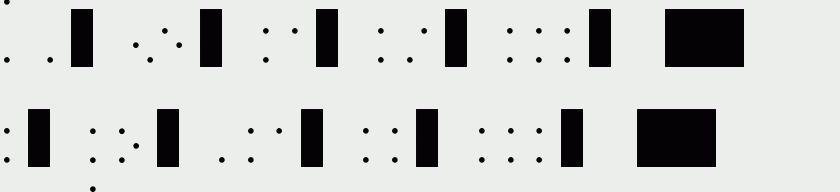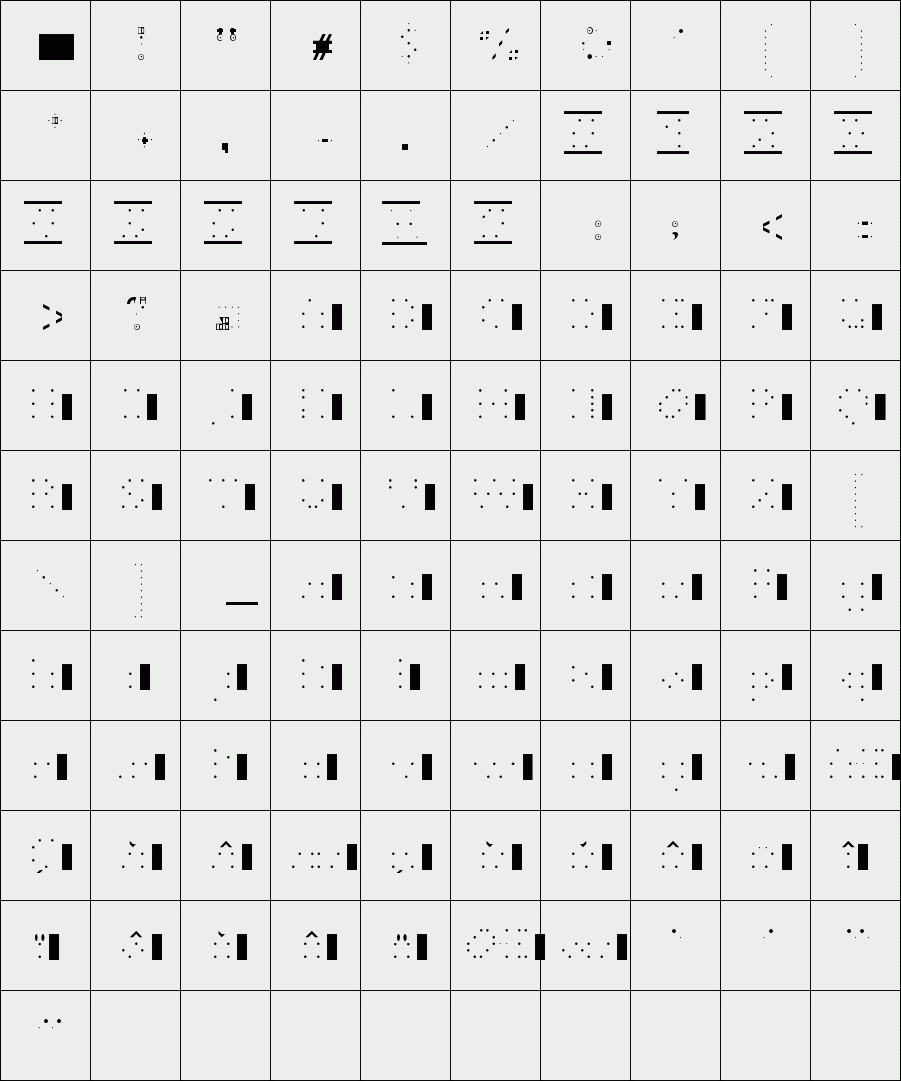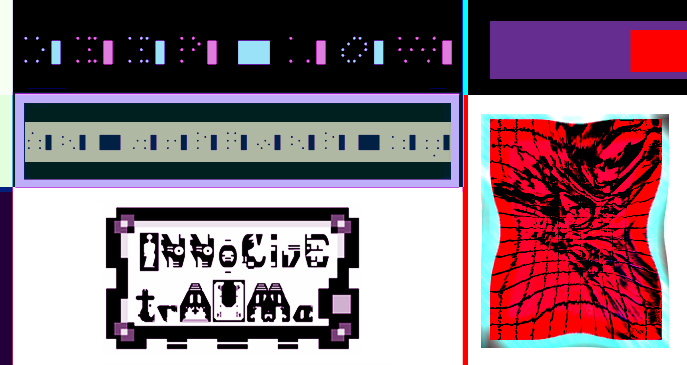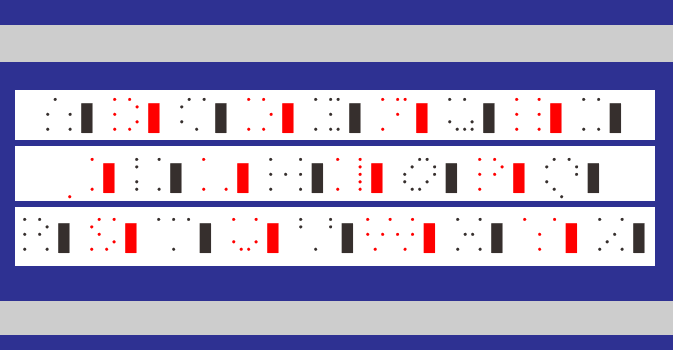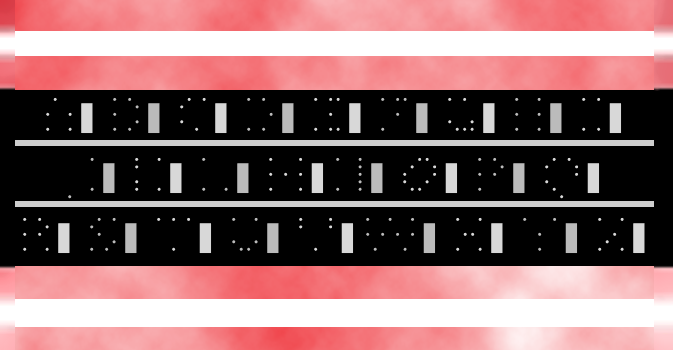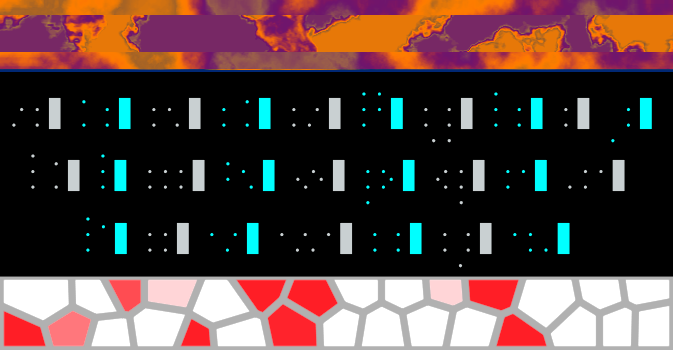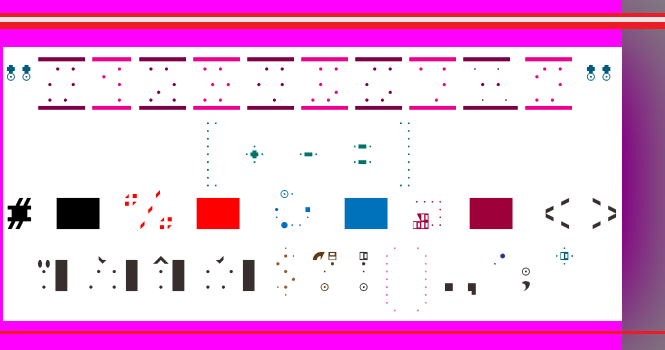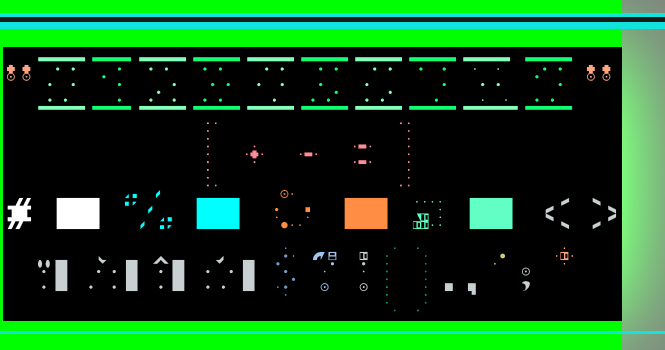
trAUMa 62 / Deep Low
"Deep Low", like all the "trAUMa" series, works at the frontier between Art & Type Design, Figuration & Abstraction, each font is a comprehensive world in which every glyph is a "living" entity. But put together they can produce your messages in the most accurate way.